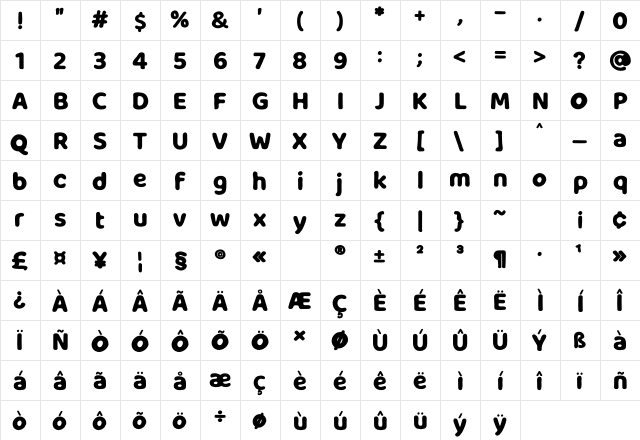
Milky Nice Clean
| Style | Clean |
| Designer | Welianto |
Design Context for Milky Nice Typeface
Milky Nice takes a measured approach to typography — its balanced proportions and neutral character make it a reliable workhorse for both digital and print work.